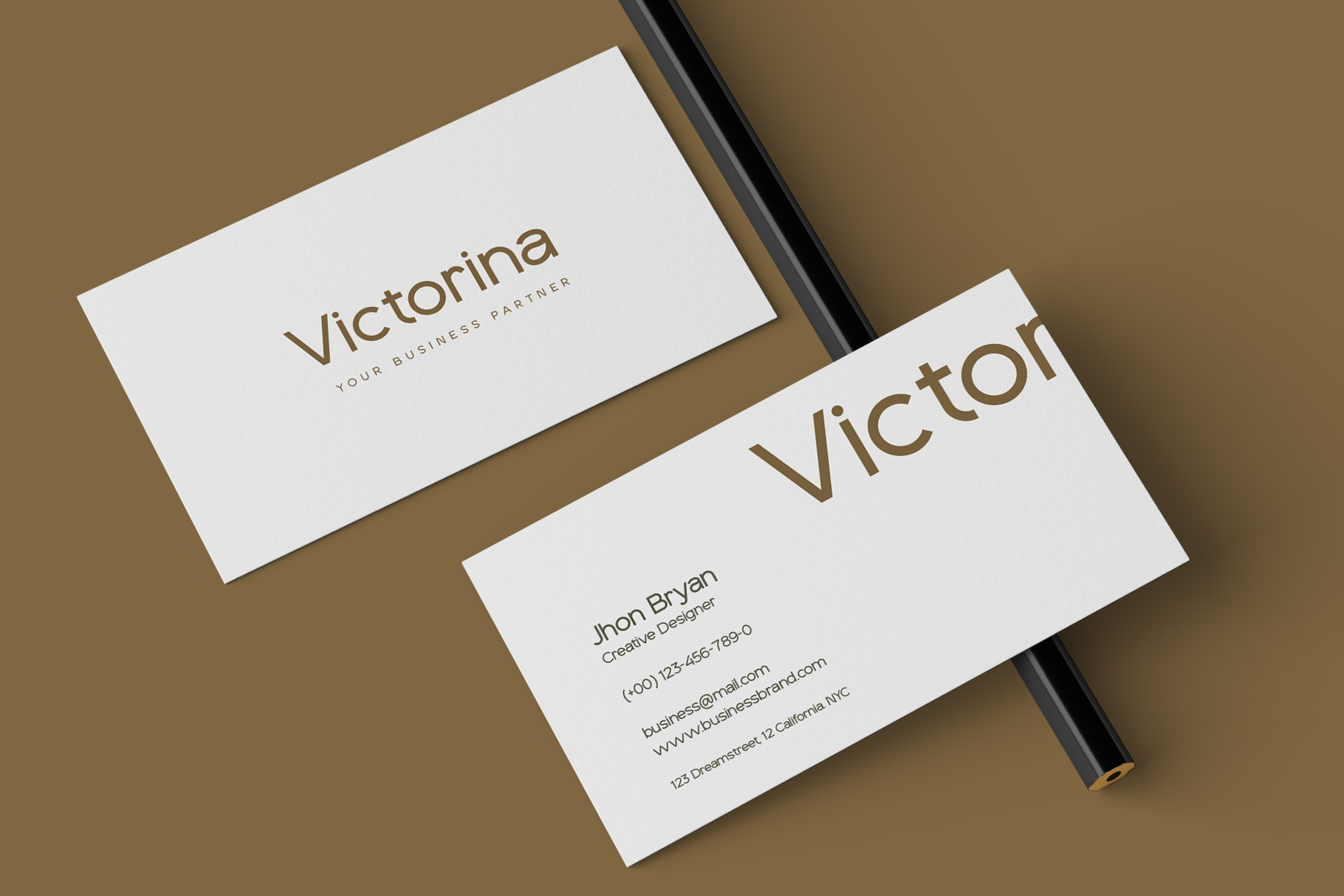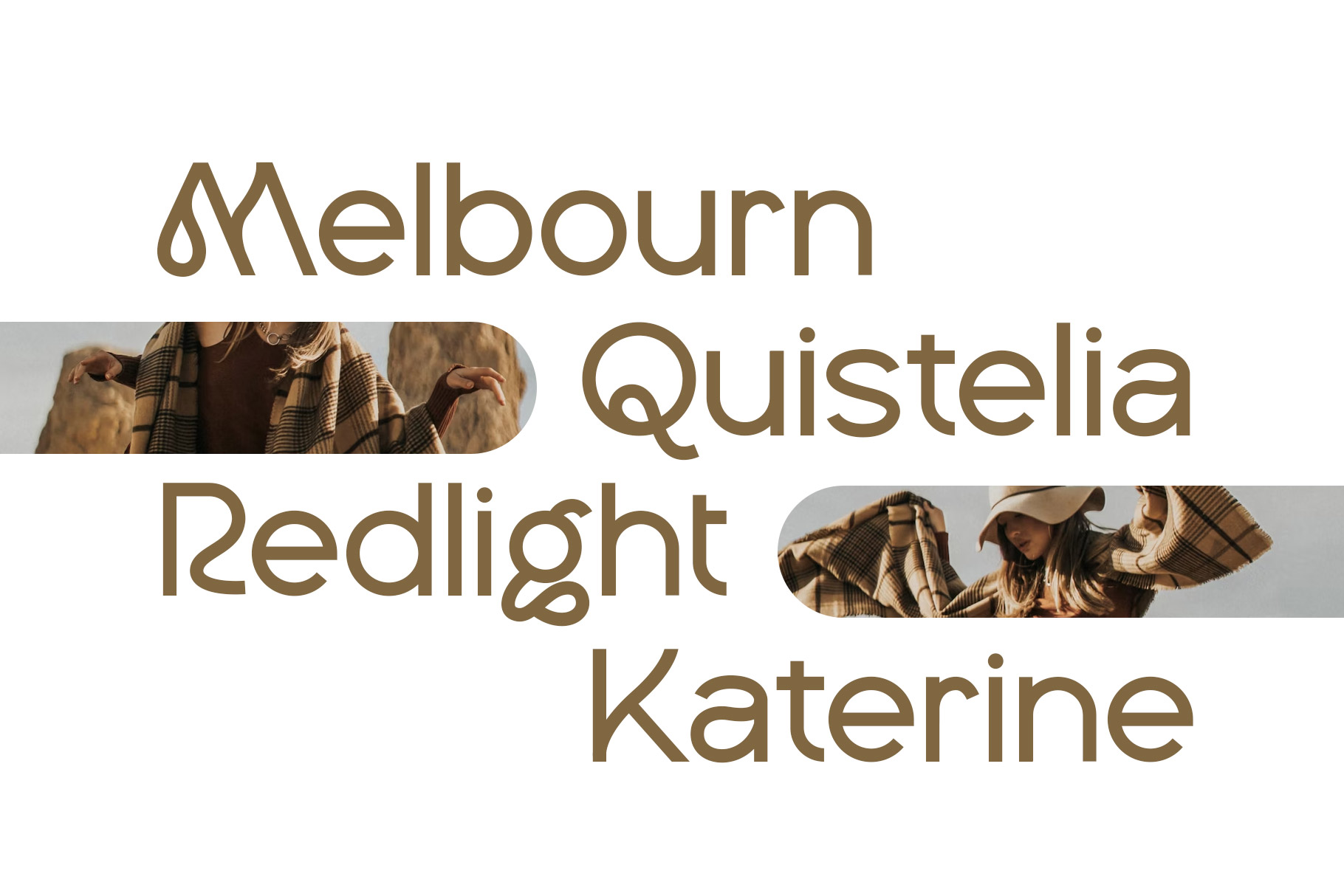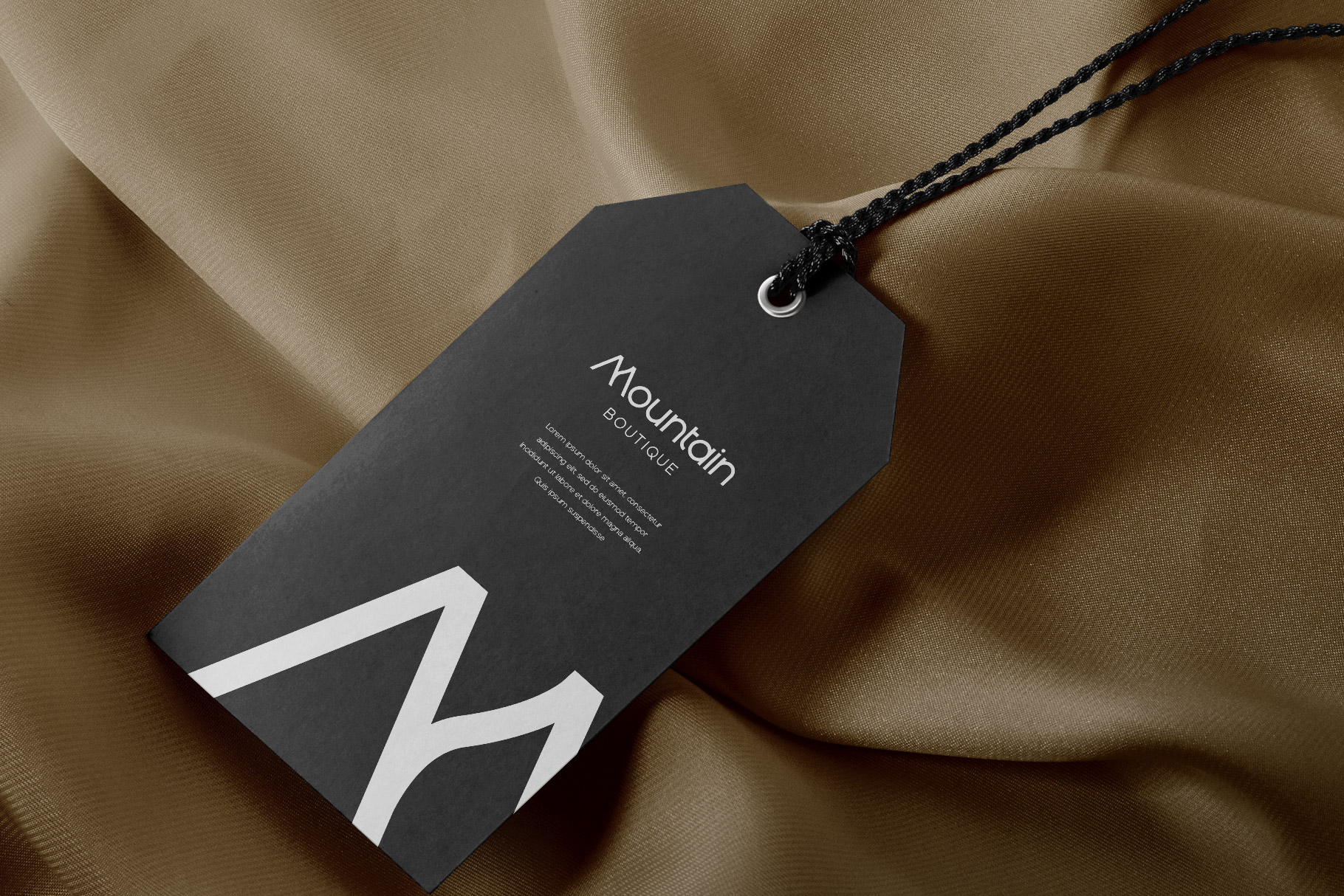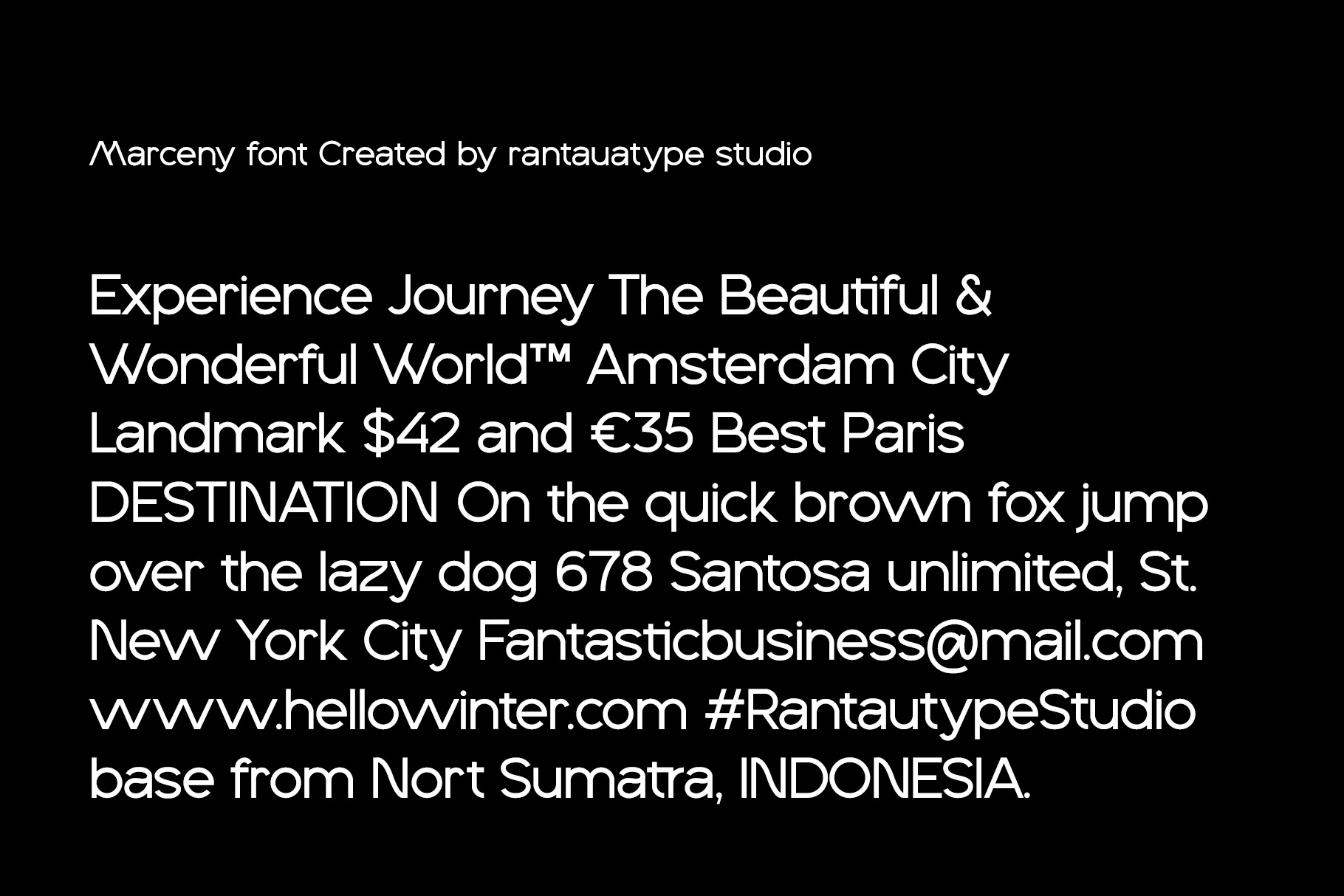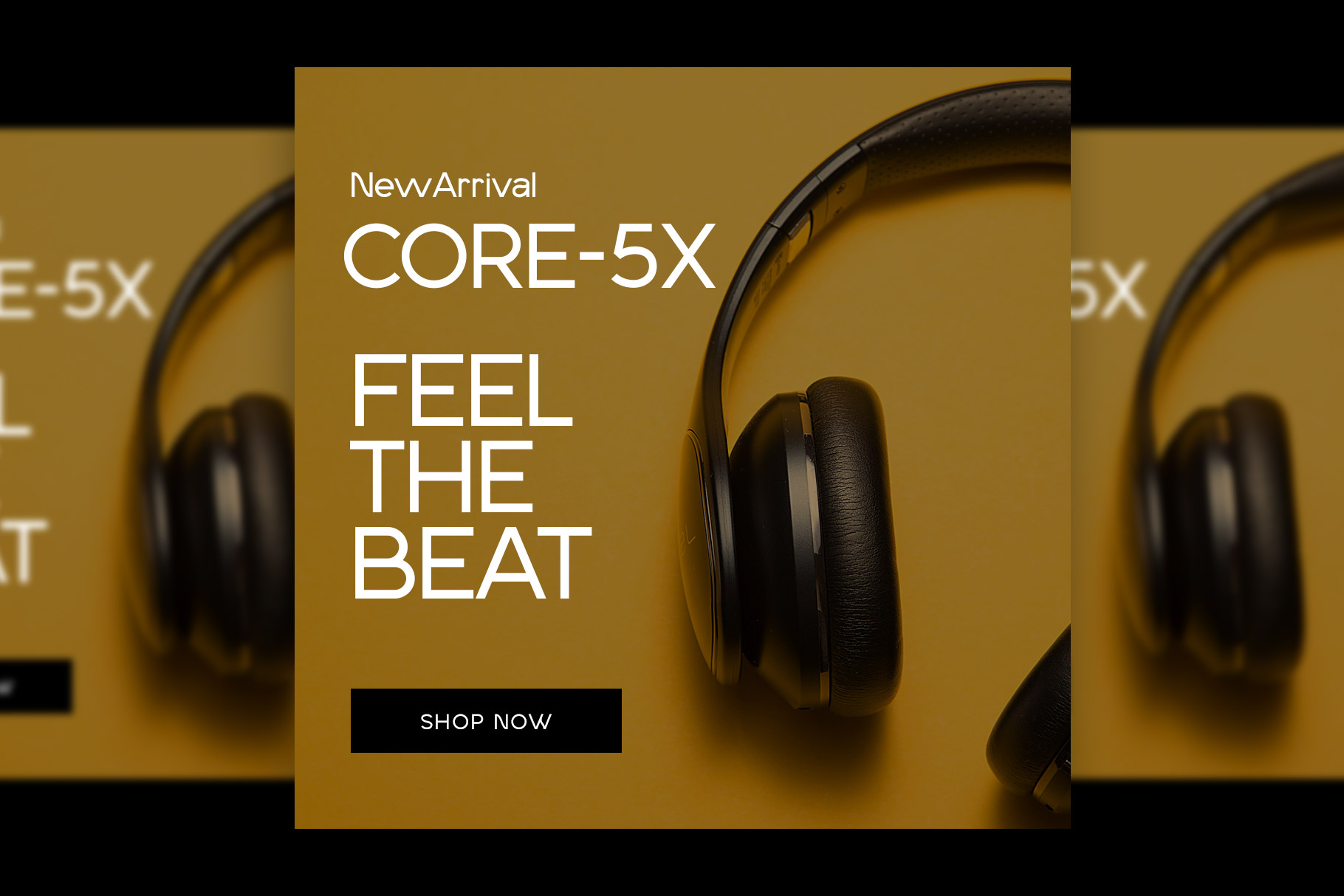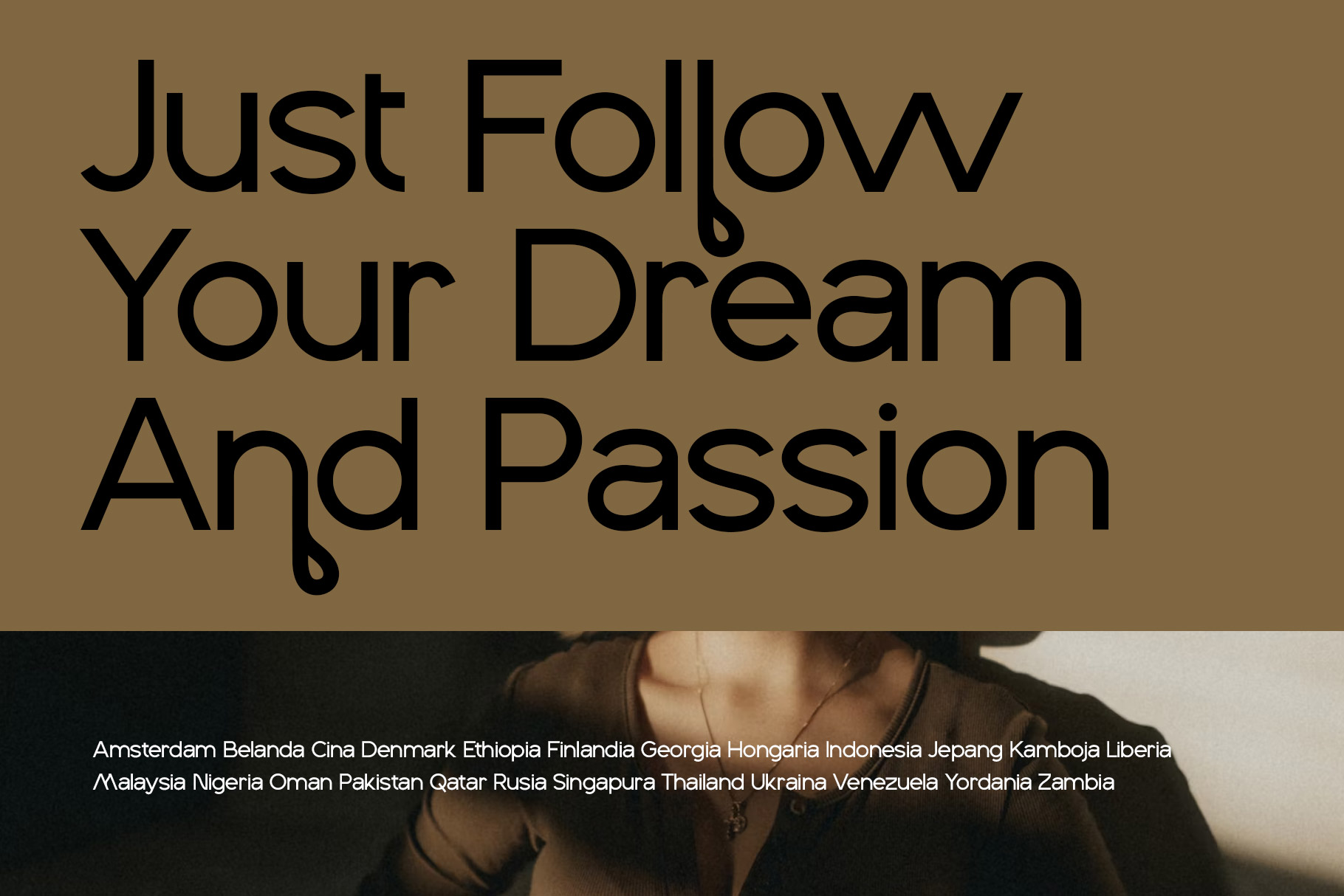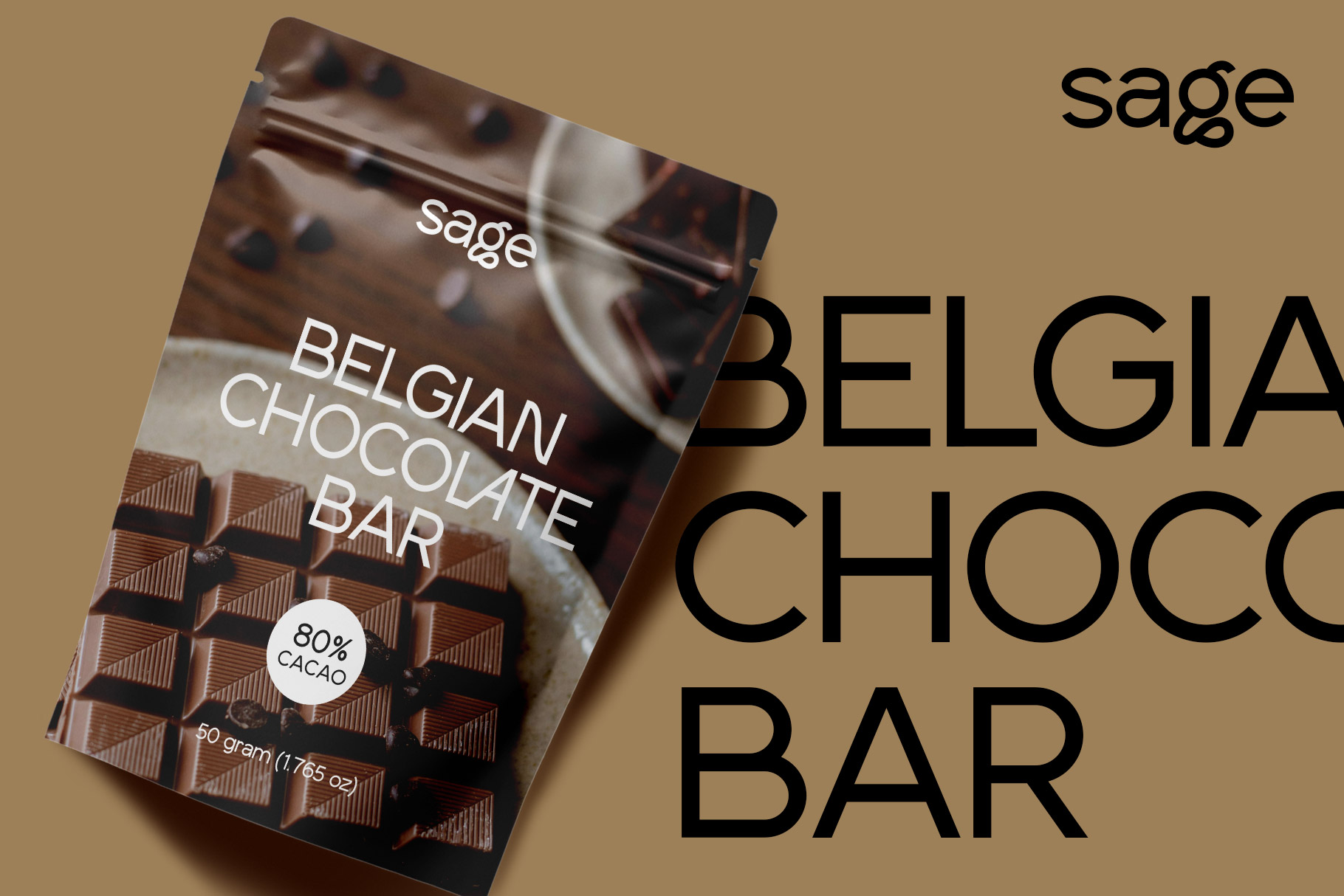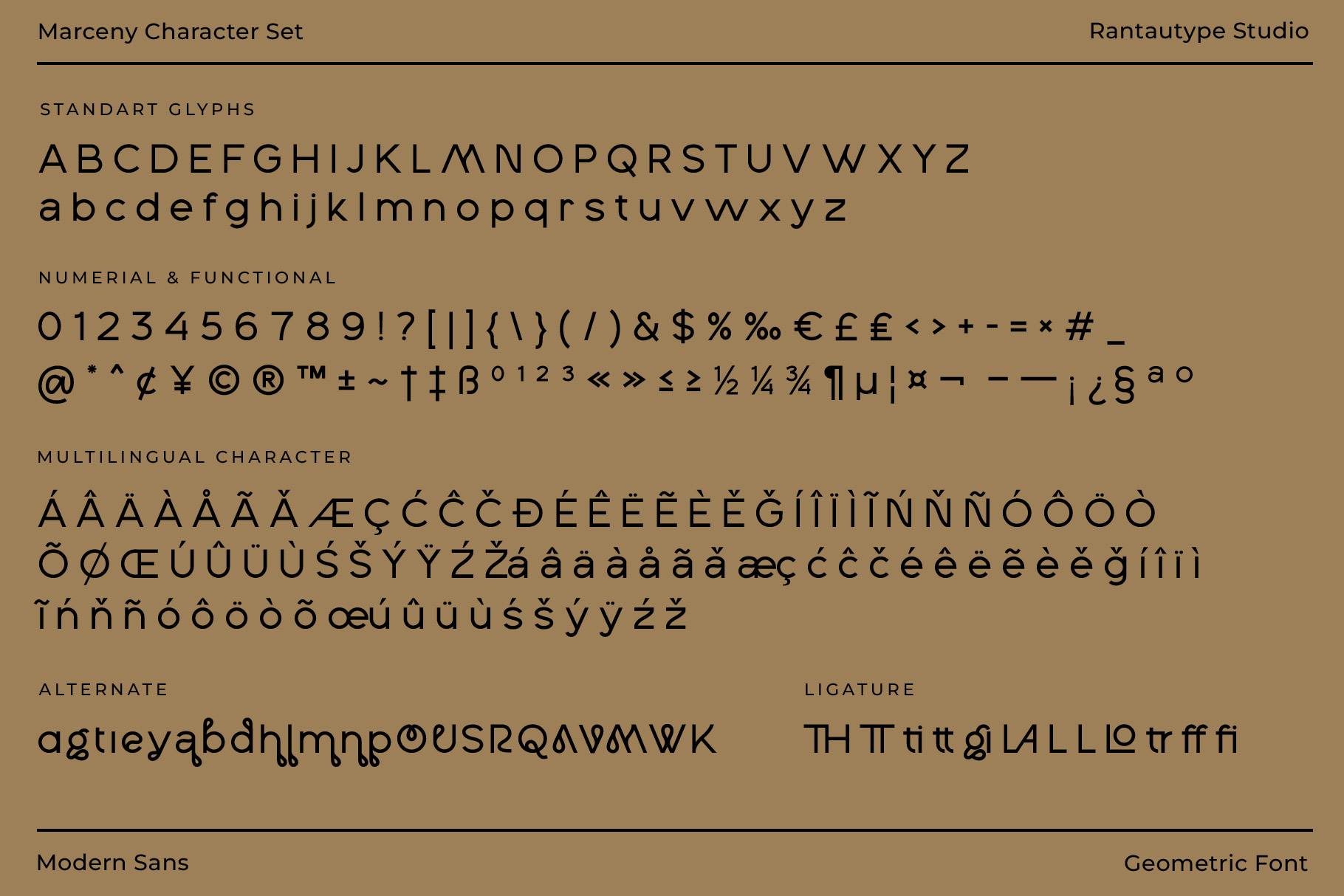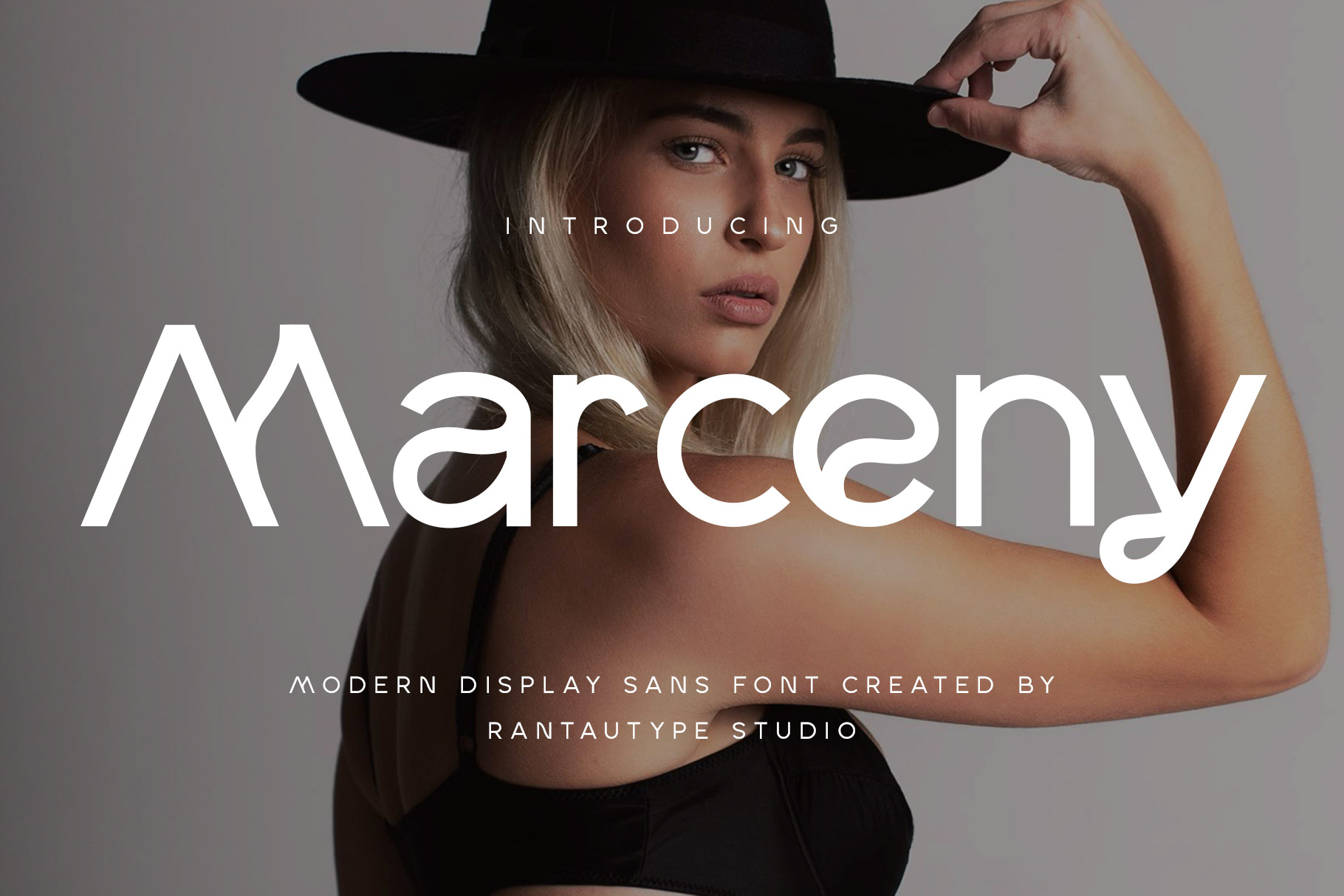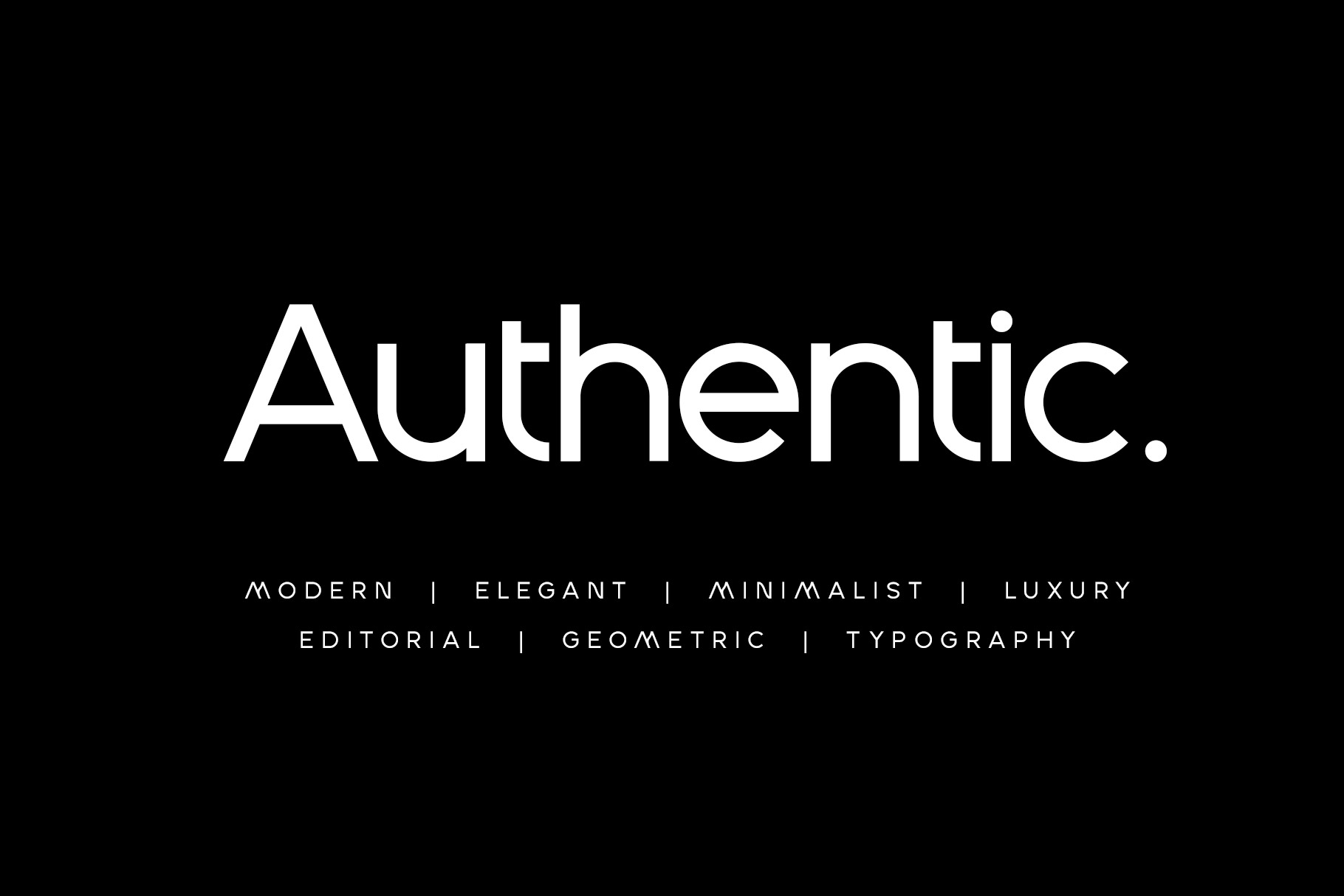
Marceny Modern Display Sans Font
Marceny is modern sans serif font with elegant and clean look. Marceny bring clean geometry shape make your design project more prosessional. Marceny is a perfectly choice for any creative endeavor, chic, lifestyle design such as logotype, advertisements, watermark on photography, stationery, branding project, display and magazine, invitation, corporate brand, product design, label, business project and many other project with modern or elegant touch.